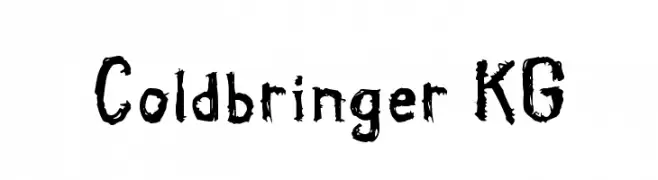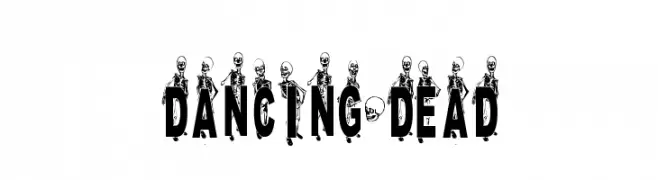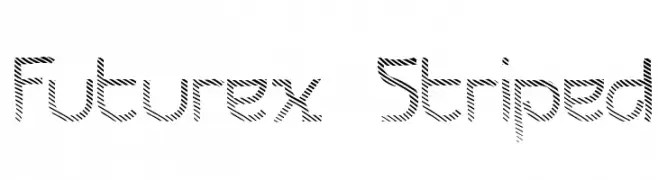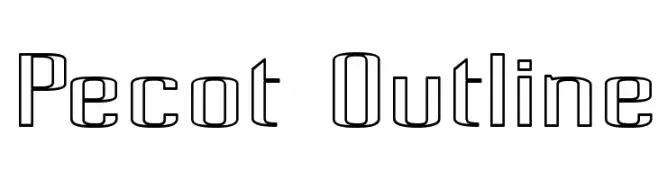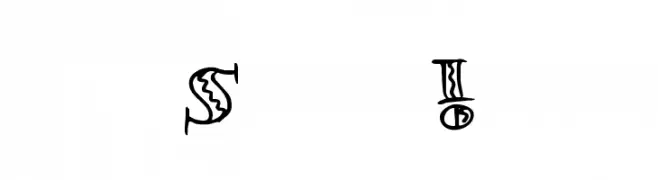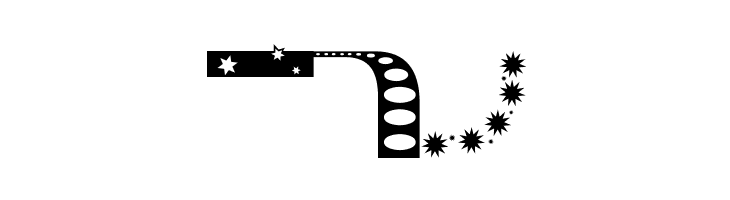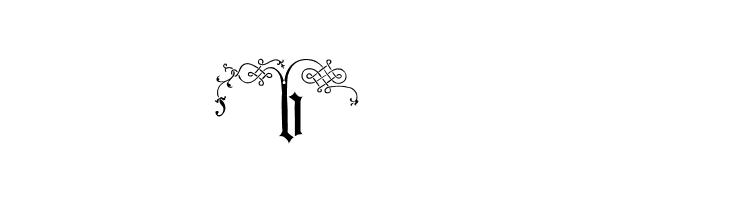
A modern, striped sans-serif font with geometric characters.
A playful, skeleton-themed font perfect for Halloween projects.
A decorative and lively font with intricate details and a festive flair.
A decorative and playful font filled with unique patterns and shapes.
A modern outline font with geometric, hollow characters for a striking visual impact.
An ornate blackletter font with intricate flourishes and a gothic style.
A bold, outlined font with a playful and modern aesthetic.
A bold, rounded, and modern font with a playful and approachable style.
A rugged, distressed font with a grungy, hand-drawn style.
A bold, geometric font with a futuristic and blocky design.